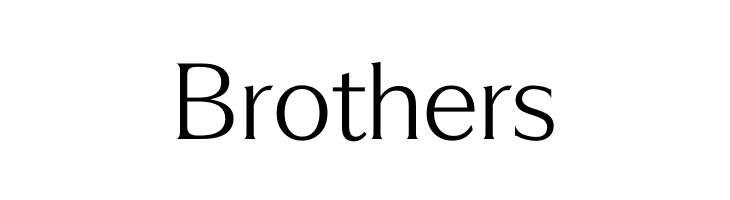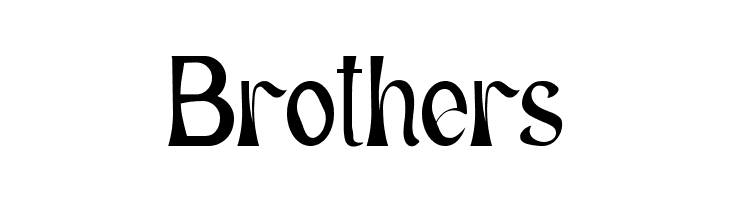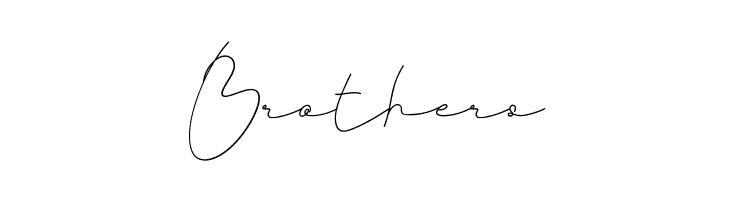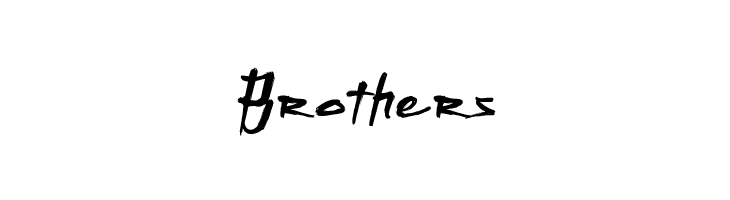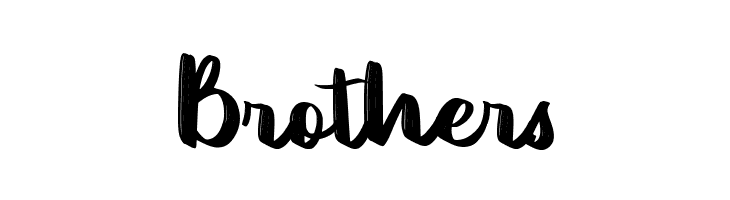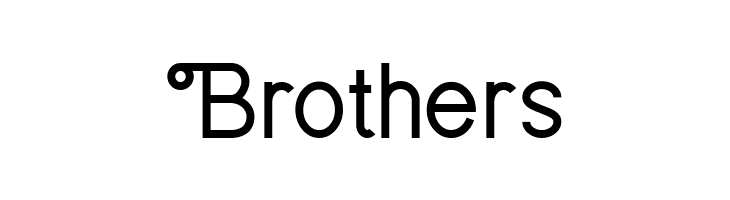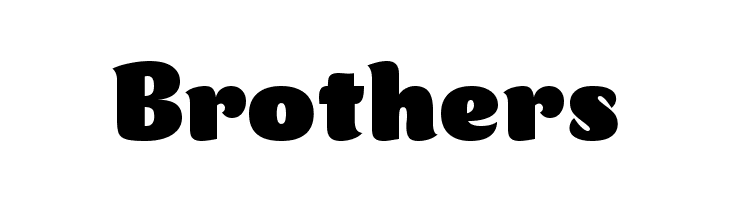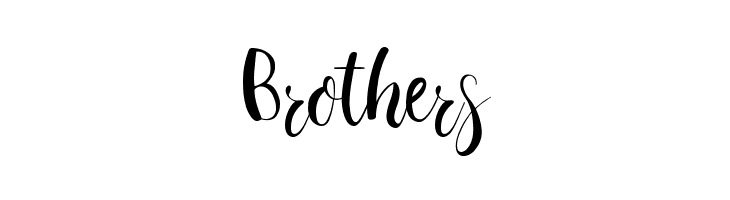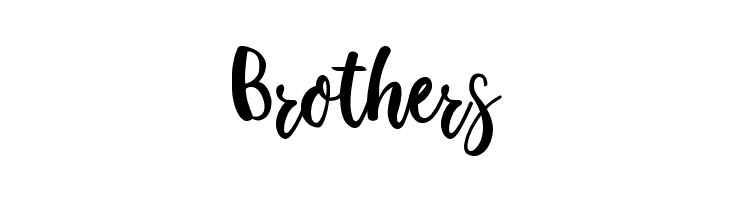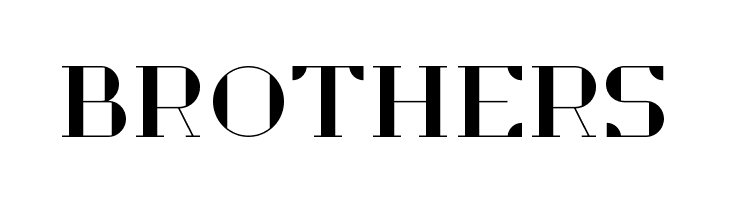
An elegant script font with flowing, interconnected letters and a sophisticated style.
A bold, intricate Blackletter font with high contrast and decorative elements.
A bold, expressive handwritten font with brush-like strokes.
A bold, expressive handwritten font with smooth, flowing curves.
A dynamic, edgy font with sharp, angular strokes and a graffiti-like style.
An elegant, flowing script font with delicate, thin strokes and cursive letterforms.
A casual, chalk-like handwritten font with a playful and dynamic style.
A bold, modern font with tall, narrow characters and consistent stroke widths.
A bold, angular font with geometric cut-outs and high contrast, ideal for decorative use.
A bold, geometric sans-serif font with a distinct outline effect.
A bold, textured font with a distressed, vintage look.
A bold, vintage-style font with thick strokes and a slightly condensed form.
A classic serif font with high contrast and elegant, elongated lines.
A casual, handwritten font with fluid, slightly slanted letterforms and a cohesive, organic feel.
Bold, modern font with uniform stroke width and geometric shapes.
A lively, expressive handwritten font with fluid, dynamic letterforms.
A playful, handwritten script font with bold uppercase and fluid lowercase letters.
A high-contrast, elegant font with sharp serifs and modern design elements.
A bold, playful font with whimsical curves and a lively, informal style.
A playful and decorative font with circular embellishments on uppercase letters.
A bold, rounded font with a playful and retro aesthetic.
A bold, hand-drawn font with a rough, expressive style.
A whimsical and artistic font with exaggerated curves and dynamic strokes.
A dynamic and expressive handwritten font with fluid strokes.
A bold, high-contrast serif font with elegant and expressive characteristics.